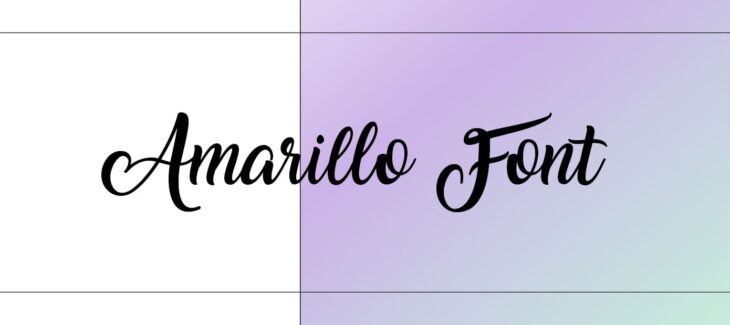
Amarillo Font is a very lovely typeface that has very quite popular in the font market. This stunning font is designed by Francis Studio. The word Camarillo is a Filipino word that means is Marigold. This font is free for personal use and this font file is also available on this website.
This font glyph has a very catchy appearance and 127 literature that also contains uppercase, lowercase, numerals, and characters. The letters of this typeface are created with perfection. This font has a precise and stylish shape that can be simply used in any type of project.
This font character is beautifully designed. if you look at these characters it looks like a very humanist joining writing texture. Many writers and developers used this pleasant Font as a text element in their different articles and blogs.
Who Used Amarillo Font?
This font is widely used to create textural designs on T-shirts. This font is also used for designing objects in many different exhibitions and articles. This type of font is used by many organizations to mark their branding logos and in many other plans.
This font gives a formal and very classic touch to your design or any other article. YouTubers are also using this typeface to build thumbnails for their channels that grab users’ attention.
Amarillo Font Family Appearance
| Designer | Francis Studio |
| Style | Calligraphy |
Why is Amarillo Font popular?
Is Amarillo Font easy to read?
Yes! This font is very easy to read Because of its condensed stylish characters and good shape. The visual of this font on textual design feels good for viewers.
What is Amarillo Font?
This font is a very unique and elegant typeface that belongs to a sans-serif family that you can download from this website easily.